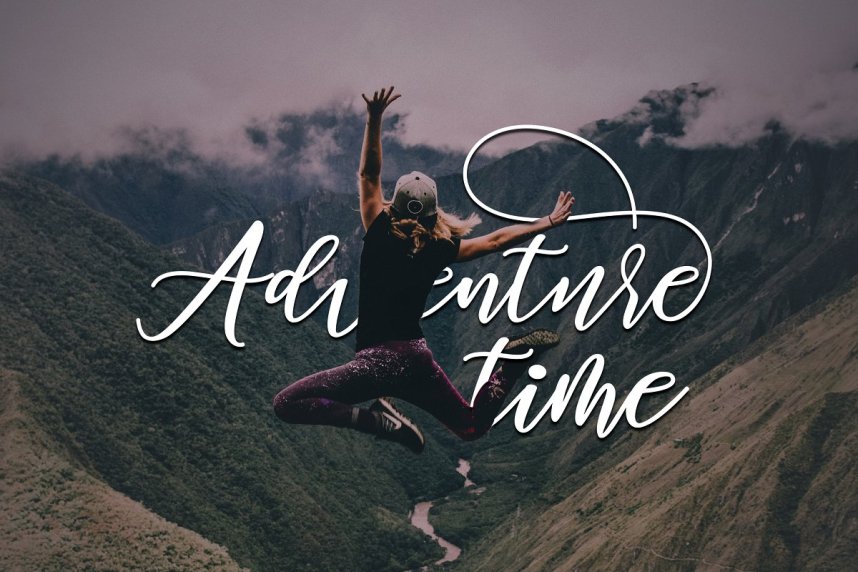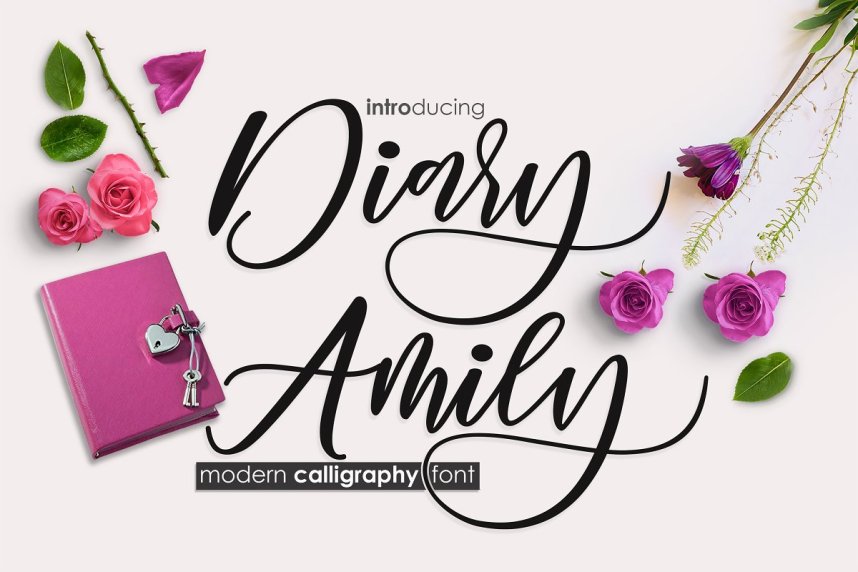
Diary Amily Script Font
Diary Amily Font is a modern calligraphy script typeface, works in harmony with Stayland to create awesome calligraphy creations. You are welcome to use it for various purposes. This font was inspired by a writing in a beautiful woman’s diary, and whatever was passed was always written in the book. Diary Amily Script is perfect for branding, wedding invitations, magazines, mugs, business cards, quotes, posters, and many more that you can use on your big project will be very beautiful.